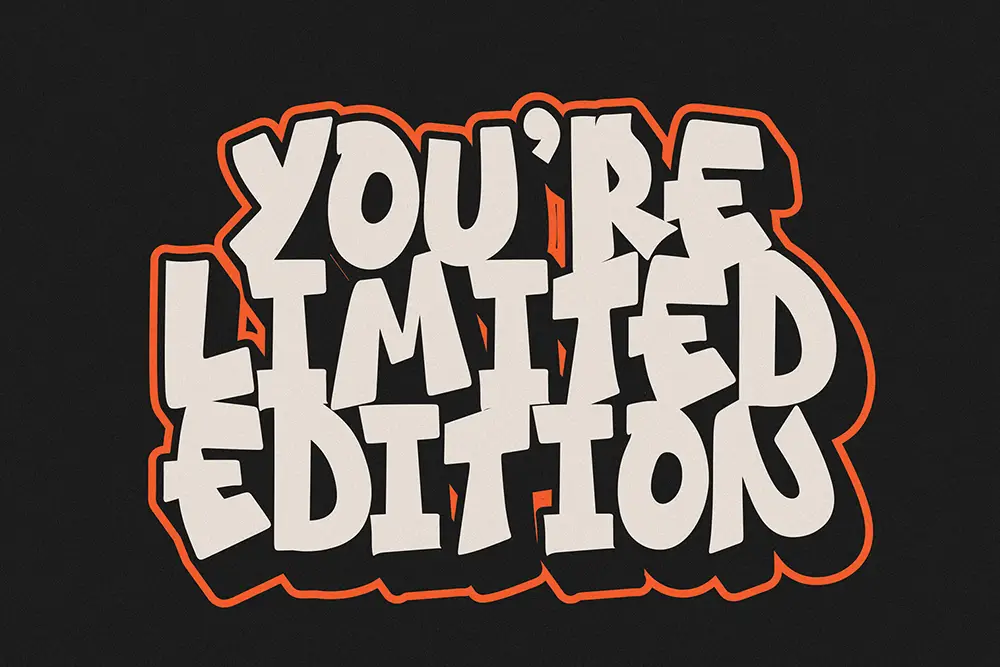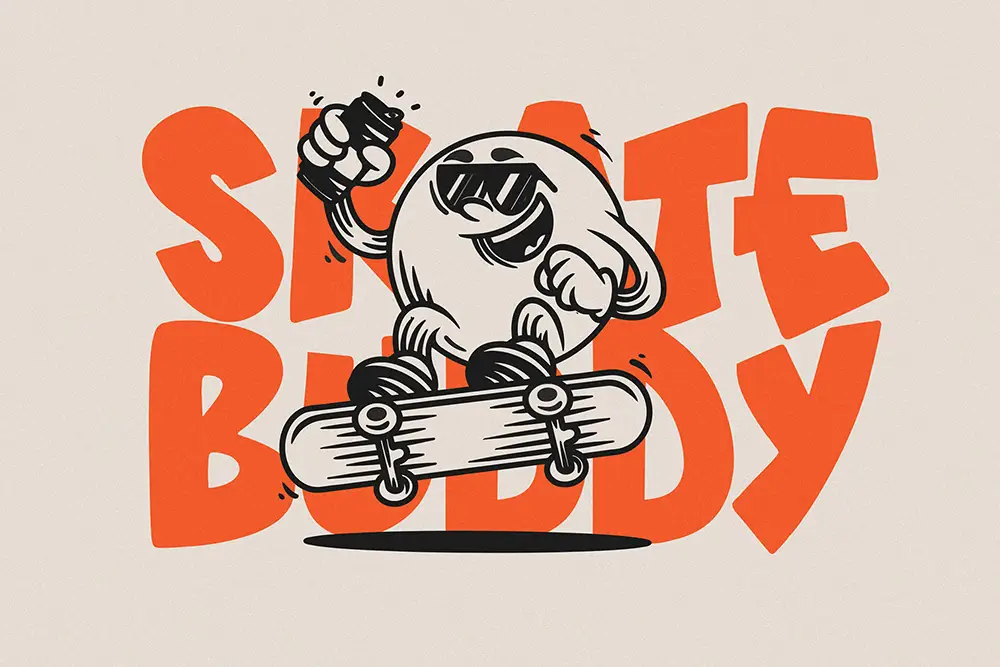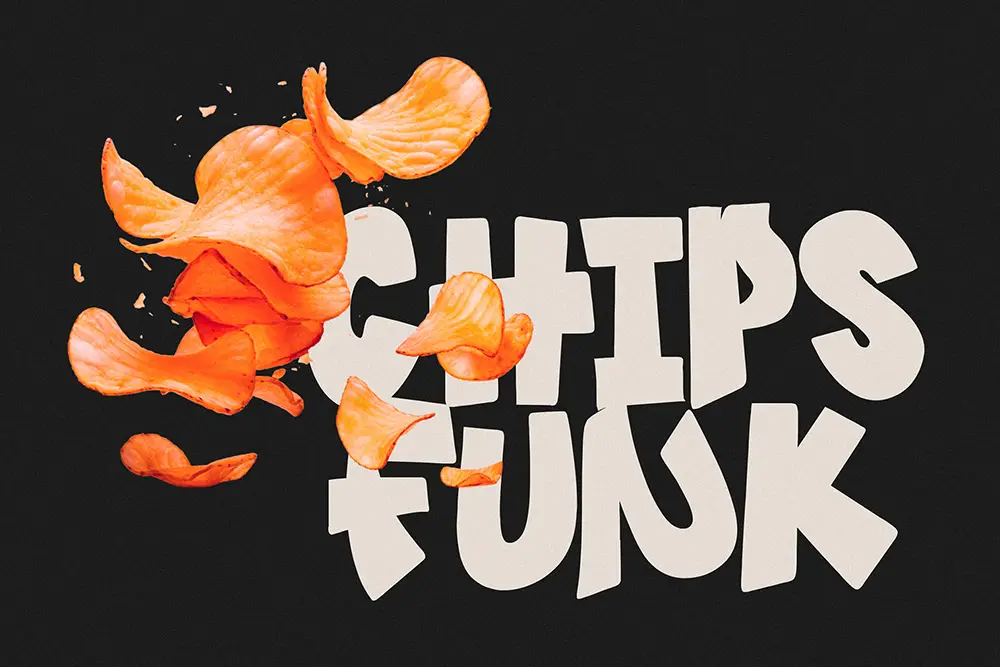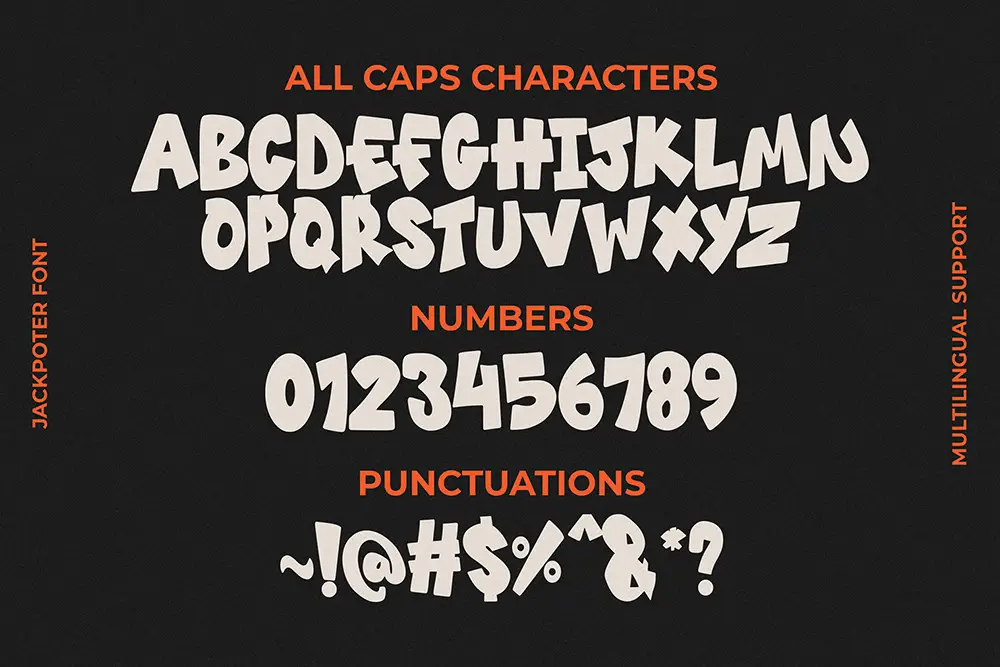
Jackpoter – Freestyle Bold Font for Impactful Design
Typography can make or break a design. If you want your projects to feel bold, loud, and unforgettable, Jackpoter – Freestyle Bold Font is the answer. With its freestyle structure, thick strokes, and playful yet strong aesthetic, this typeface was built to dominate logos, posters, headlines, and creative branding.
The freestyle bold font category thrives on individuality, and Jackpoter takes that spirit further with all caps, multilingual support, and unique alternates in numbers. Whether you’re designing event posters, branding for a creative agency, or impactful digital campaigns, Jackpoter is the bold font you’ve been waiting for.
Freestyle Bold Font with All Caps Power
Jackpoter is designed as an all caps freestyle bold font that commands attention. Each letterform has a freestyle edge that feels modern and creative, making it ideal for projects that need personality and strength. Unlike ordinary bold fonts, Jackpoter carries a handcrafted vibe that reflects authenticity while maintaining professional readability.
Its freestyle strokes make it highly versatile for headlines, social media graphics, or packaging. When you want your typography to look bold, creative, and full of attitude, Jackpoter is the freestyle bold font that delivers.
Key Features of Jackpoter – Freestyle Bold Font
Jackpoter comes loaded with features that make it both fun and professional for designers:
- All Caps: Strong uppercase letters built for bold display usage.
- Multilingual Support: Extended Latin coverage for global designs.
- Alternates in Numbers: Creative numeric alternates for unique typographic flair.
- Freestyle Bold Style: Thick strokes with handcrafted personality.
- Perfect for Display Use: Best for posters, logos, banners, and headlines.
Why Designers Love Jackpoter
Creative professionals love Jackpoter because it blends freestyle energy with professional usability. Many bold fonts feel too rigid, but Jackpoter has the perfect balance between structure and playfulness.
Here’s why it’s a designer favorite:
- Instant Impact: Its freestyle bold font style makes any project loud and clear.
- Versatility: Works across logos, posters, and creative branding.
- Number Alternates: Adds extra creative variation for projects like sports or events.
- Global Ready: Multilingual support ensures Jackpoter works for international projects.
Jackpoter for Logos and Posters
Logos and posters need typography that is bold, memorable, and versatile. Jackpoter, as a freestyle bold font, delivers exactly that. Its all caps design ensures maximum readability and visual punch, while the freestyle strokes add creativity and personality.
Brands and events that want to stand out will find Jackpoter perfect for designing unforgettable marks. From product launches to festival promotions, this font makes a statement every time.
Freestyle Bold Font in Digital Media
Digital media thrives on visuals that pop. Jackpoter is a freestyle bold font designed for social media graphics, YouTube thumbnails, and online campaigns. Its alternates in numbers give designers extra flexibility for creative layouts—great for esports scores, event countdowns, or modern advertising.
Jackpoter’s freestyle personality also resonates strongly with youth-driven audiences, making it a perfect fit for brands targeting digital-first consumers.
- Character Set: All Caps + Alternates in Numbers
- Category: Freestyle Bold Font
- Best Uses: Logos, Posters, Headlines, Digital Media, Creative Branding
Font Pairing Suggestions
Jackpoter shines when paired with the right typefaces. For a strong, creative mix, we recommend:
Combining Jackpoter with Street Rats creates a bold contrast between freestyle boldness and graffiti curves—perfect for urban branding, posters, and digital campaigns.
Why Jackpoter is the Freestyle Bold Font You Need
The design world demands fonts that are bold, creative, and flexible. Jackpoter is the ultimate freestyle bold font for modern designers who want personality in their typography. It combines freestyle energy, all caps power, number alternates, and multilingual coverage in one professional package.